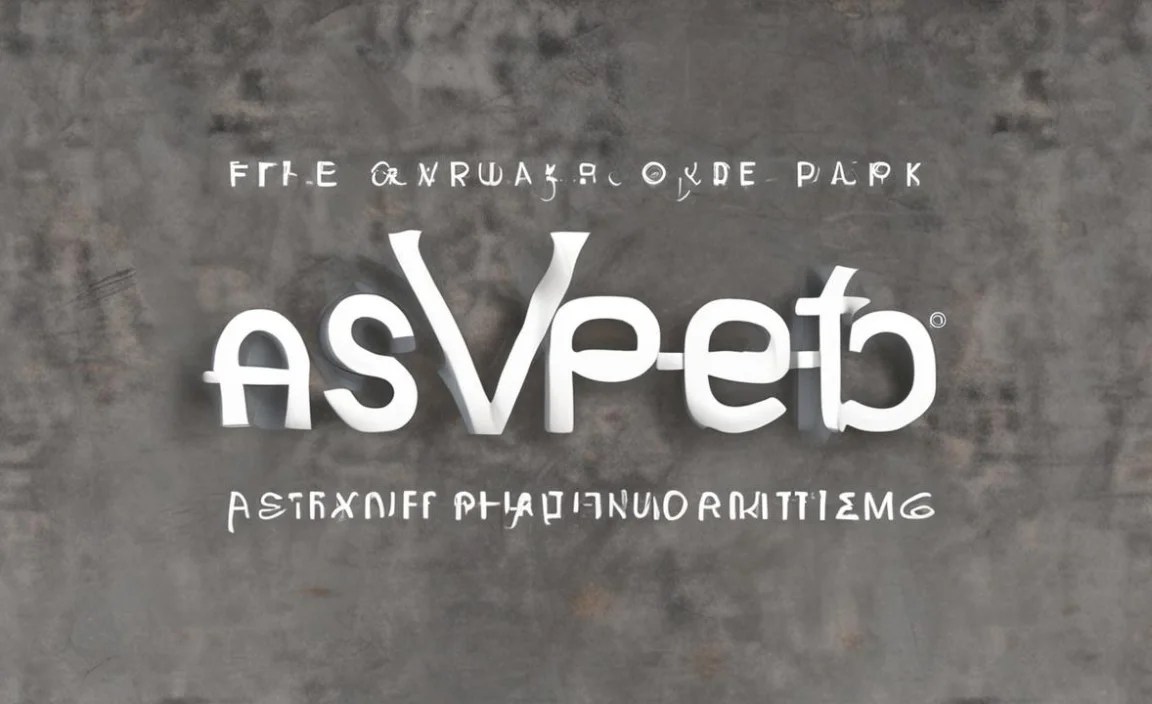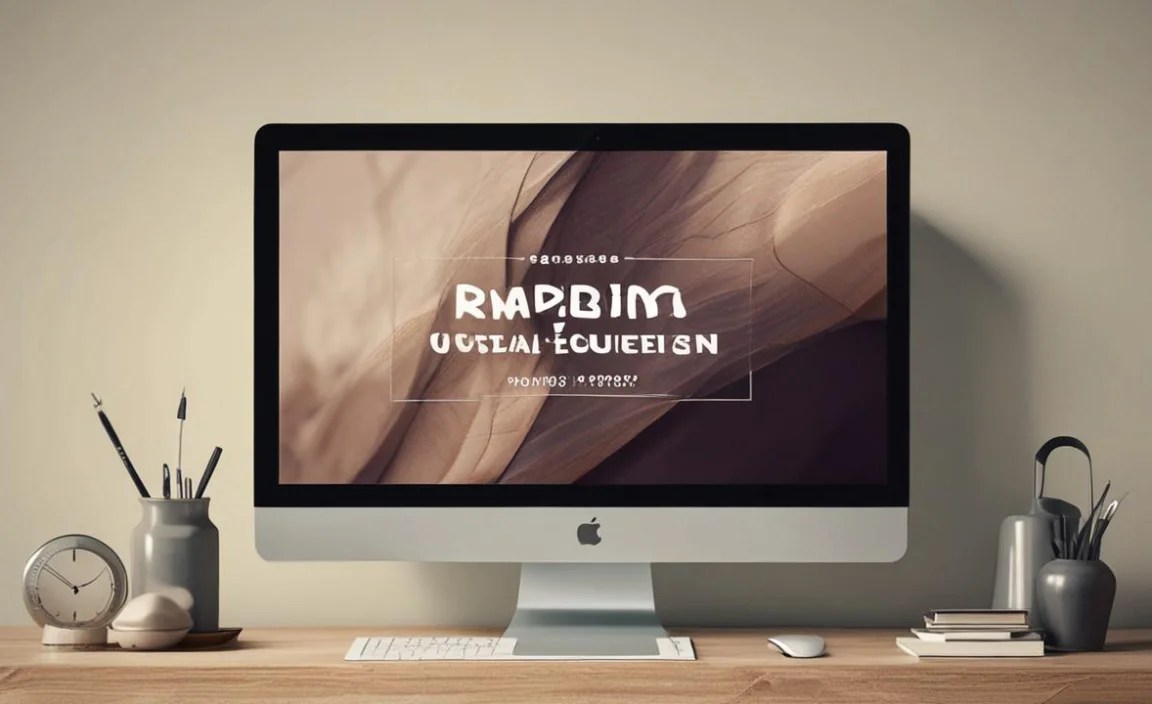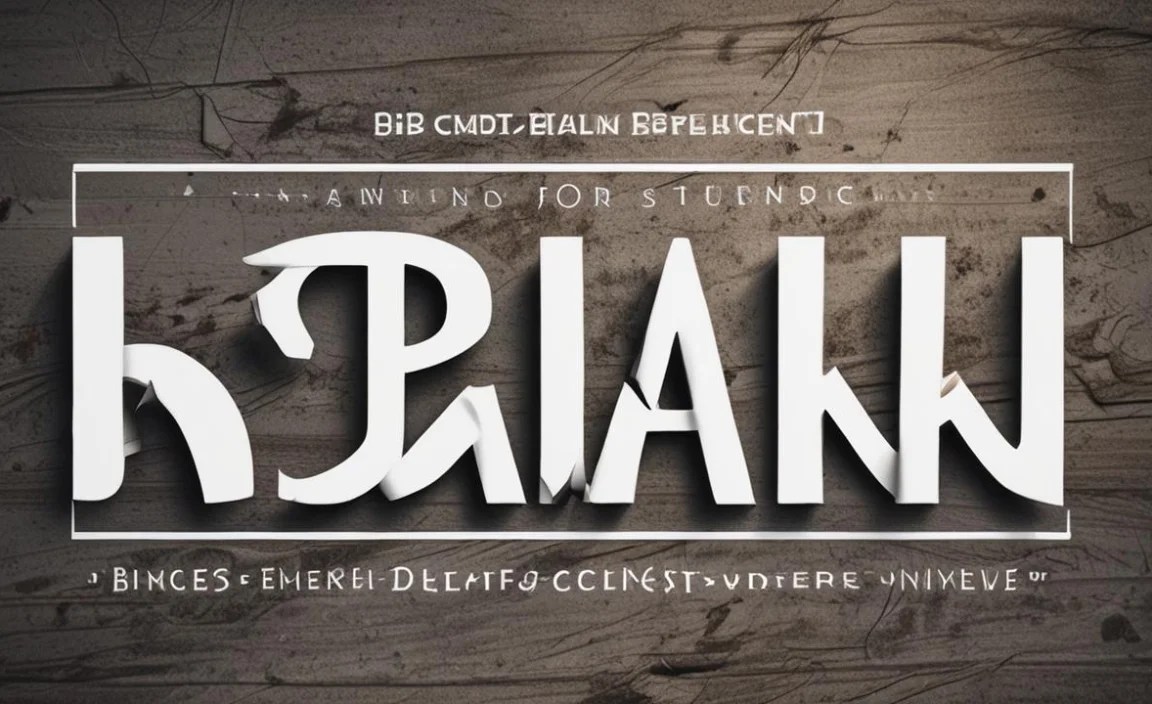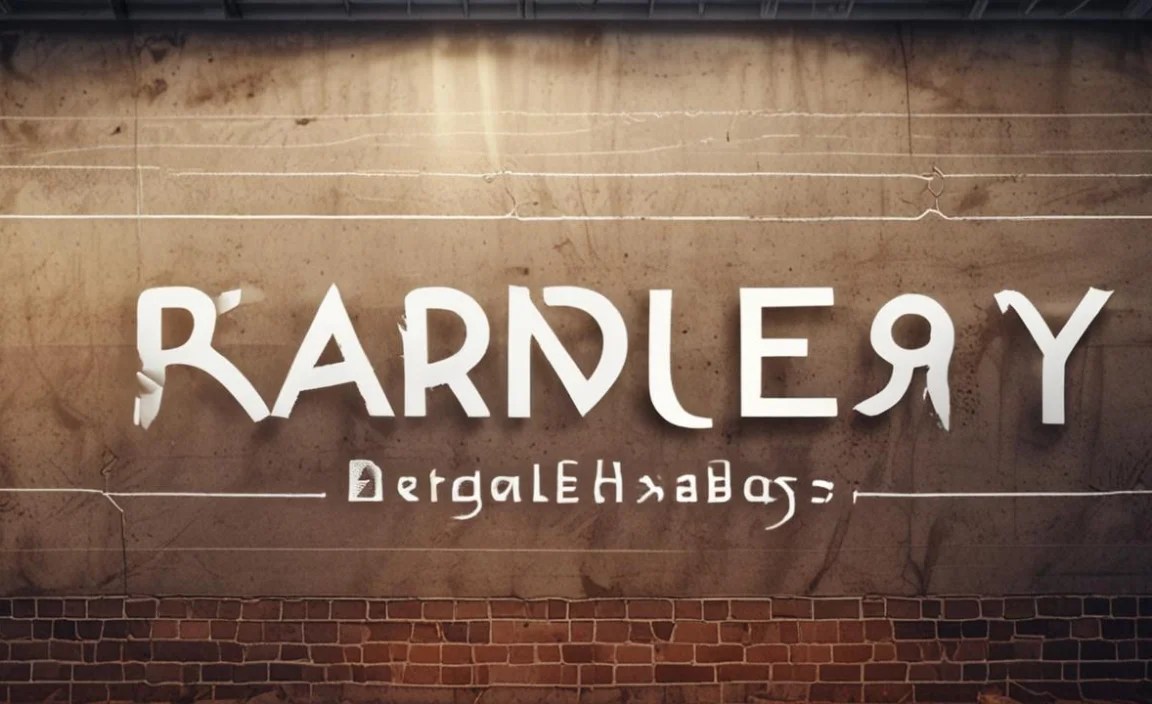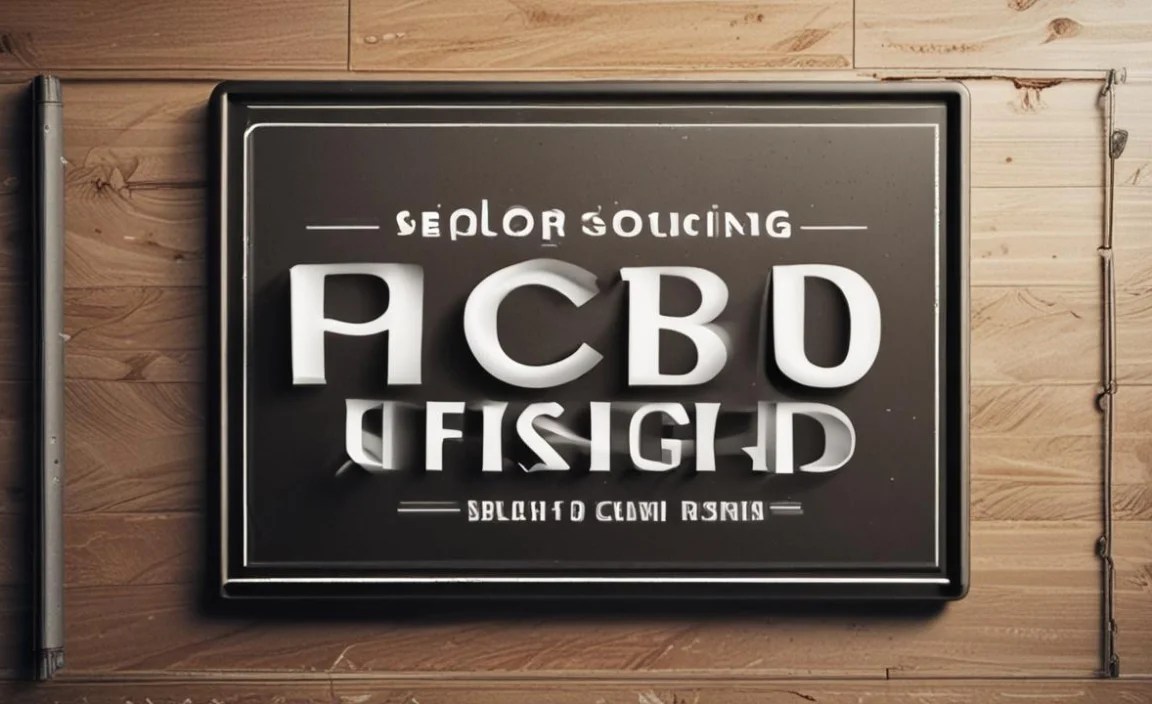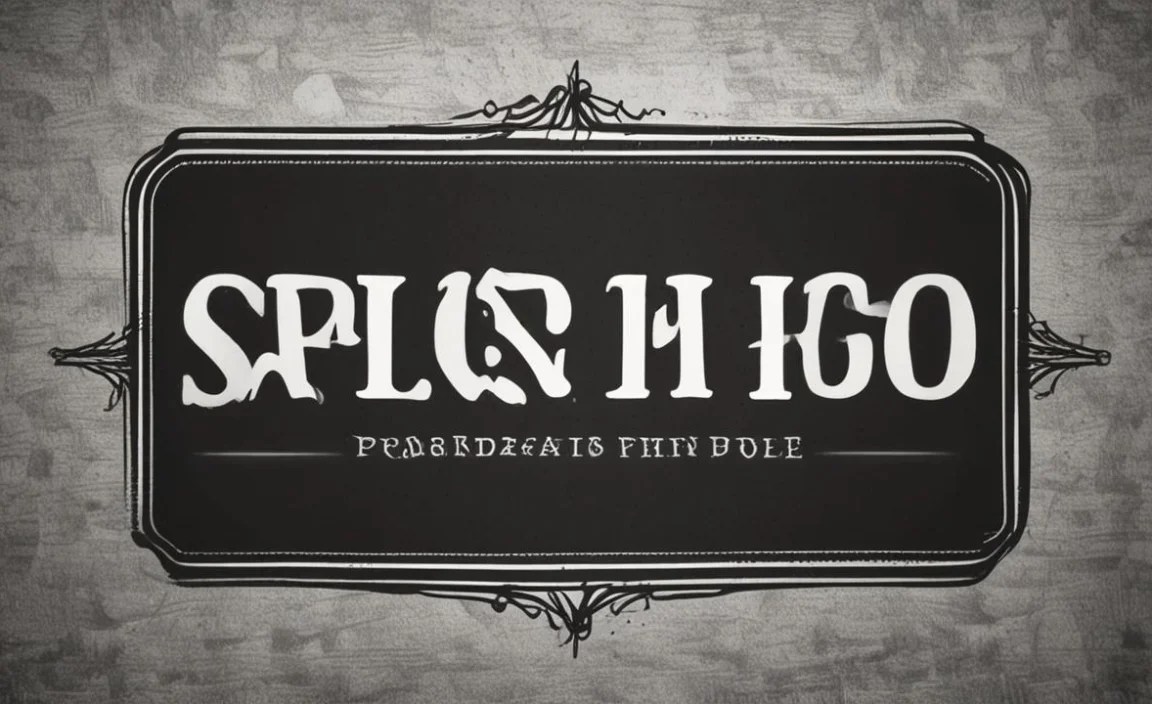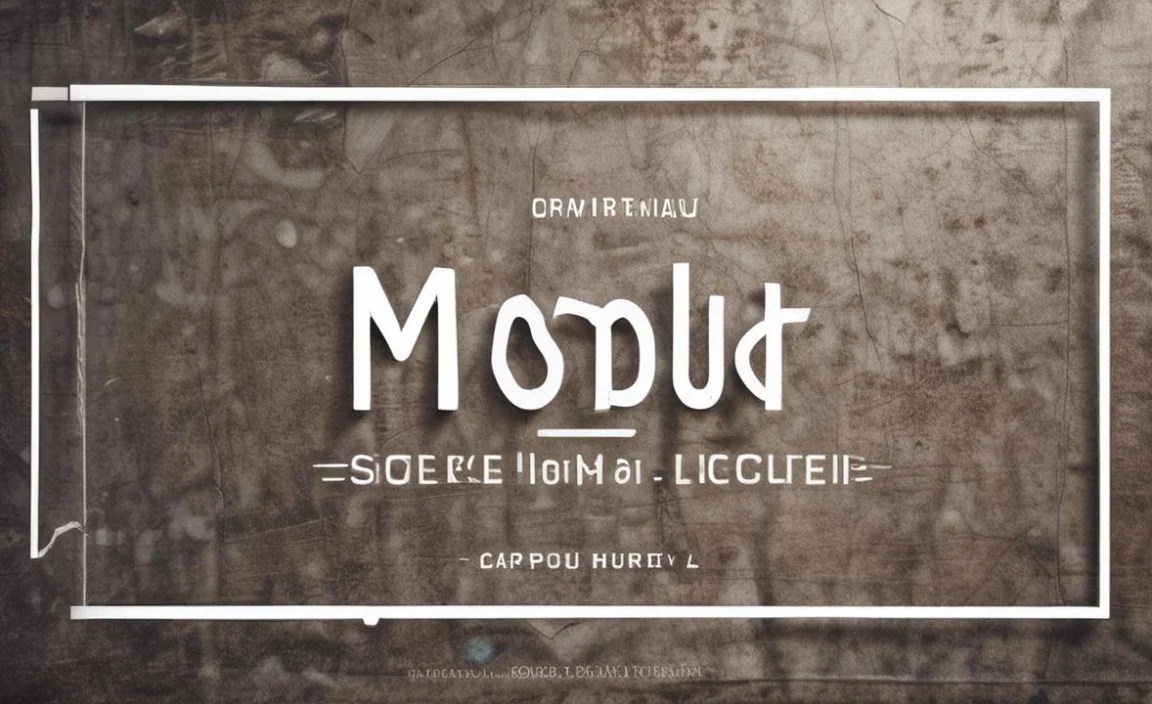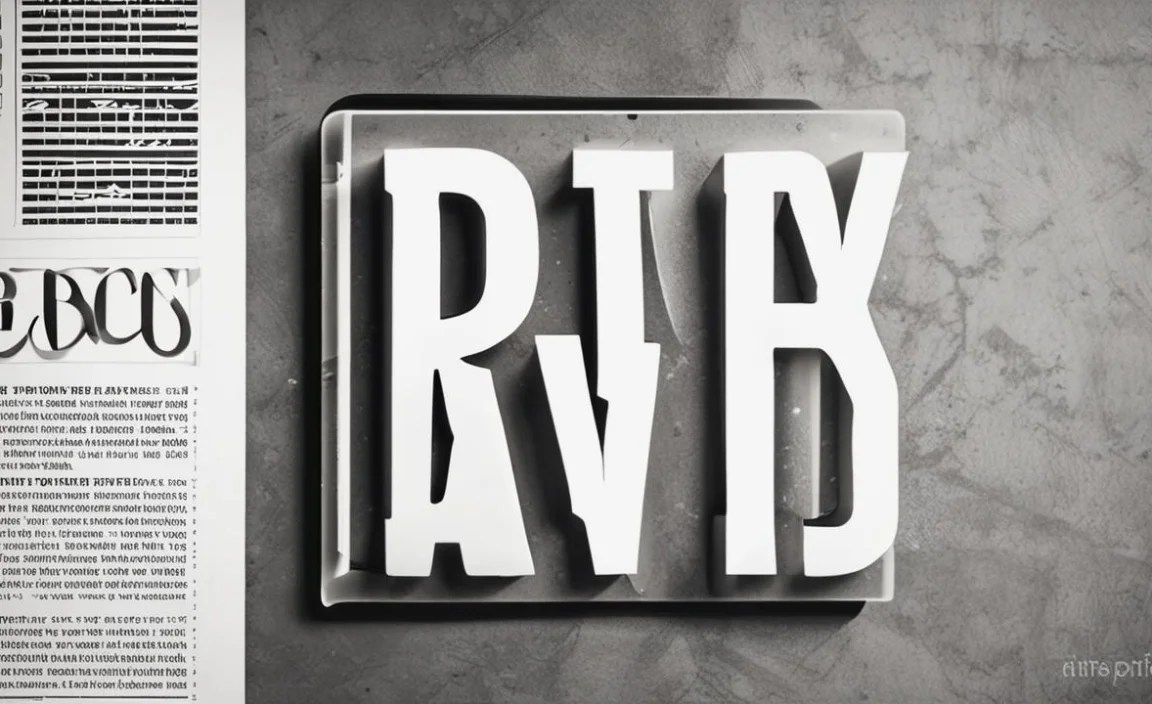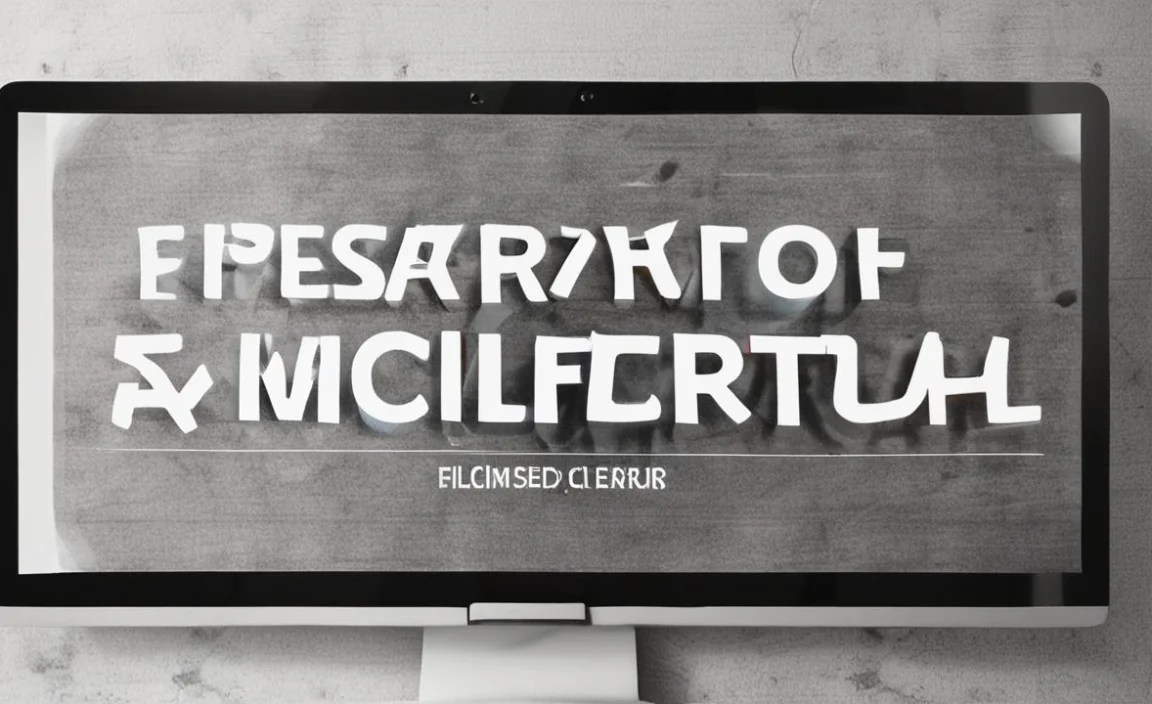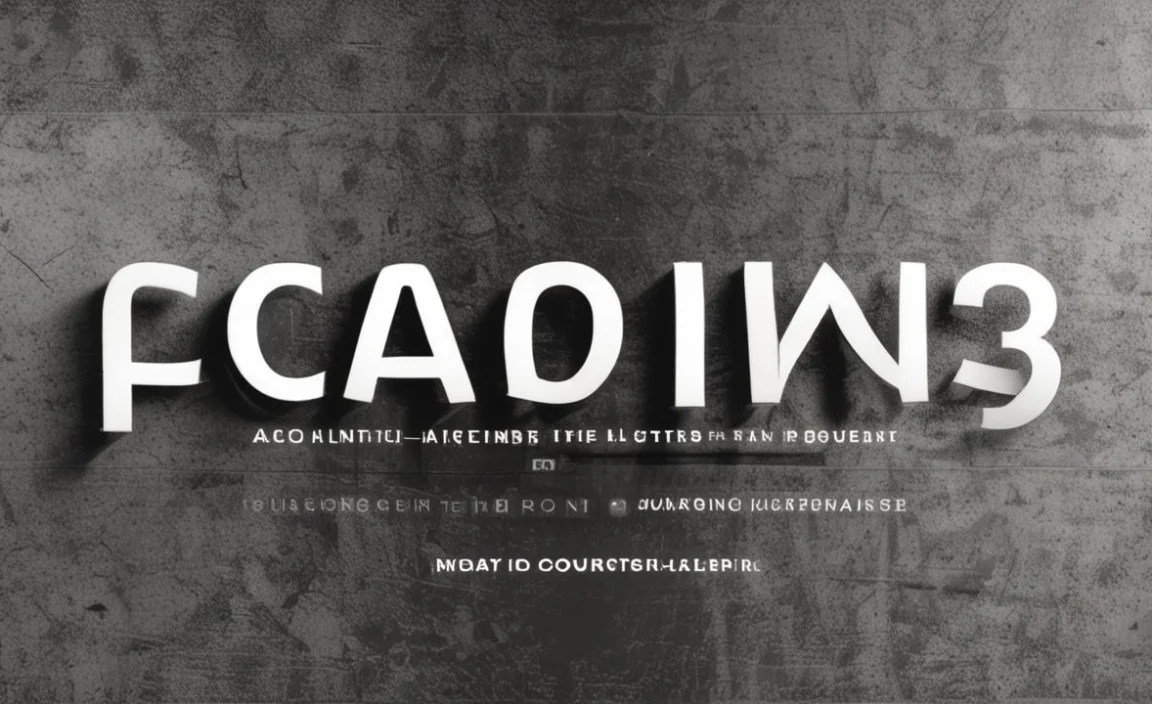
Fonts are more than just words on a page; they give your design personality and represent your brand without being spoken for. Scratch-style fonts are an effective tool for adding raw energy and authenticity to your digital projects.
Created with unique, distressed textures that evoke a sense of imperfection, these fonts bring a level of depth and character that’s hard to achieve with any other typeface.
Take it from Roman Anthony, the brilliant designer who popularized these fonts. His scratched fonts feature rough edges and uneven strokes, transforming them into something extraordinary. Whether you’re designing a logo, poster, flyer, or website, adding scratched fonts adds a gritty charm that captures attention. They make a striking impression, exuding a lively and unpolished vibe.
Why Choose Scratched Fonts?
When choosing a font, it is not just about the words; the fonts themselves have meaning. Scratched fonts offer a powerful way to tell your story. Their textured appearance is perfect for projects that require a bit of edge and an authentic, handmade look.
Here are some of the key areas where scratched fonts shine:
Logos & Branding: Sc scratched fonts are a great choice if you’re designing a logo that screams personality. Think of the boldness of vintage fonts or the rebellious spirit of typewriter fonts. They create a brand identity that’s memorable and distinct.
Posters & Advertisements: Scratched fonts significantly enhance any promotional material that aims to attract attention. Their rugged aesthetic perfectly captures attention in crowded spaces, be it a movie poster or a street ad.
Flyers & Signage: You want your flyer or signage to stand out in a crowd, right? A scratched font adds the perfect amount of texture to make your message stand out, while maintaining a casual and artistic vibe.
Packaging and Labels: Picture walking into a store and seeing old, hand-made boxes with scratched fonts. These fonts deliver a warm, personal touch for products that want to feel artisanal or retro.
Web & Social Media: Not only are scratched fonts great in print, but they also bring creativity to the online space. Whether you’re designing a social media post, website banner, or email header, scratched fonts stand out and bring a fresh, dynamic flair to your digital presence.
Popular Scratched Font Families
An extensive collection of scratched fonts, each with a distinct style. Whether you’re looking for something grungy, retro, or hand-crafted, there’s a font family that fits your project. Here are a few scratched fonts to consider:
Scratch Font:
This one is the classic distressed font that started it all. It’s perfect for any project that needs to look rough and rugged. Whether you’re designing a logo or creating a movie poster, Scratch Font has that worn-in, time-tested look.
Typewriter Fonts:
These fonts are perfect for vintage and retro vibes. The uneven strokes and imperfect spacing create a nostalgic, typewriter-era charm that transports your design back in time.
Brush Fonts:
If you want something that feels more artistic and free-flowing, brush fonts are a great option. The hand-painted strokes in these fonts give off a casual, yet sophisticated vibe, ideal for creative projects that need a bit of finesse.
Sans Serif Font:
For those who want to balance the textured look of scratched fonts with a modern twist, sans serif fonts are an excellent option. They add a clean, minimalistic contrast to the roughness of scratched fonts, giving your design a contemporary edge.
-
Decorative Fonts:
Decorative fonts are a must for designs that need to stand out. These fonts are full of personality, making them perfect for projects that want to capture attention and showcase your unique style.
How to Enhance Visuals with Scratched Fonts
Once you’ve selected the ideal scratched font, it’s time to enhance your design. Here are a few tips to help you use scratched fonts to their full potential:
-
Choose the Right Colors: Color is key when working with scratched fonts. High-contrast colors make your text stand out, which makes it easy to read. You can use bright colors together, like black and white, neon against dark backgrounds, or metallic colors on projects with a vintage look.
-
Utilize Ligatures & Alternates: One of the coolest features of many scratched fonts is their alternate characters and ligatures. These variations add depth and creativity to your design, giving it a more personalized touch.
-
Use Extended Character Maps: Scratched fonts often come with an extended character map, which means you can access a variety of symbols and effects. These extras, such as icons, special characters, and custom flourishes, enable you to elevate your design to a higher level.
Can I Use Scratched Fonts For Websites?
Yes, but be cautious. Ensure that the font is legible and works well with your site’s overall design. Too many distressed fonts can be hard to read on a digital screen.